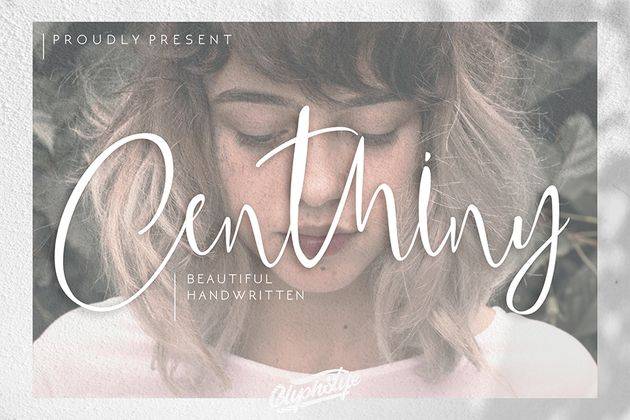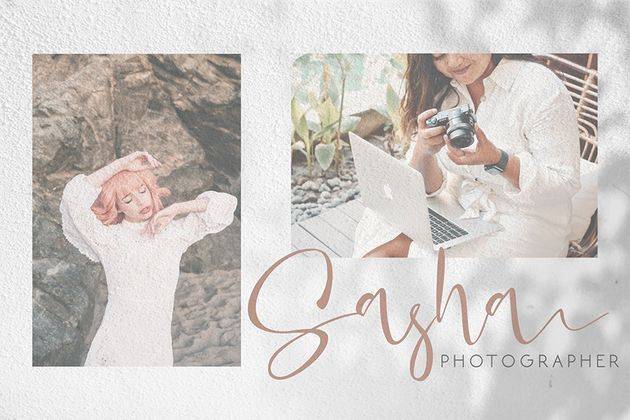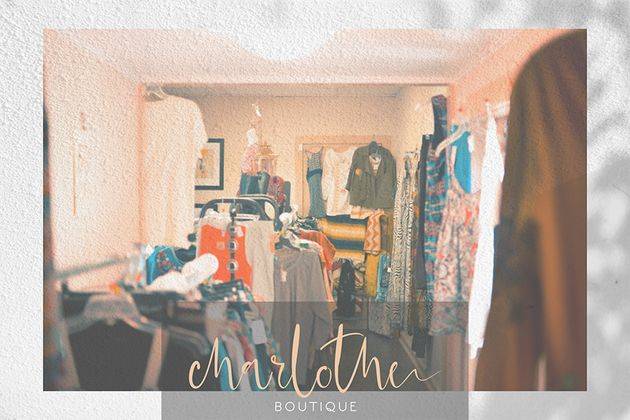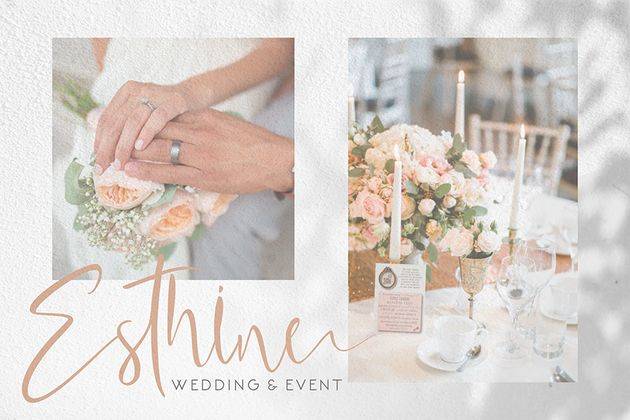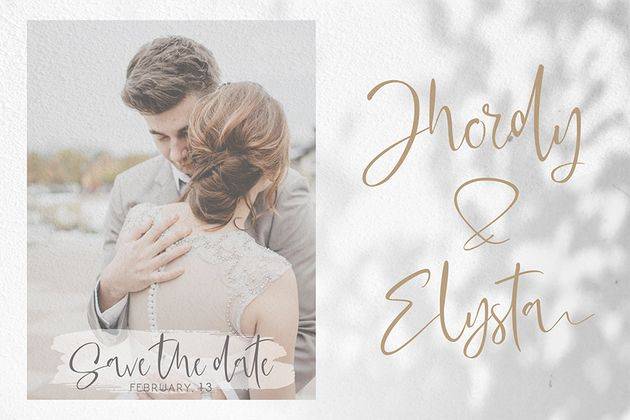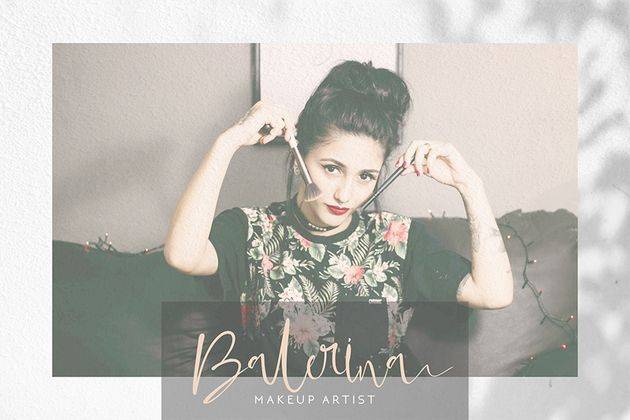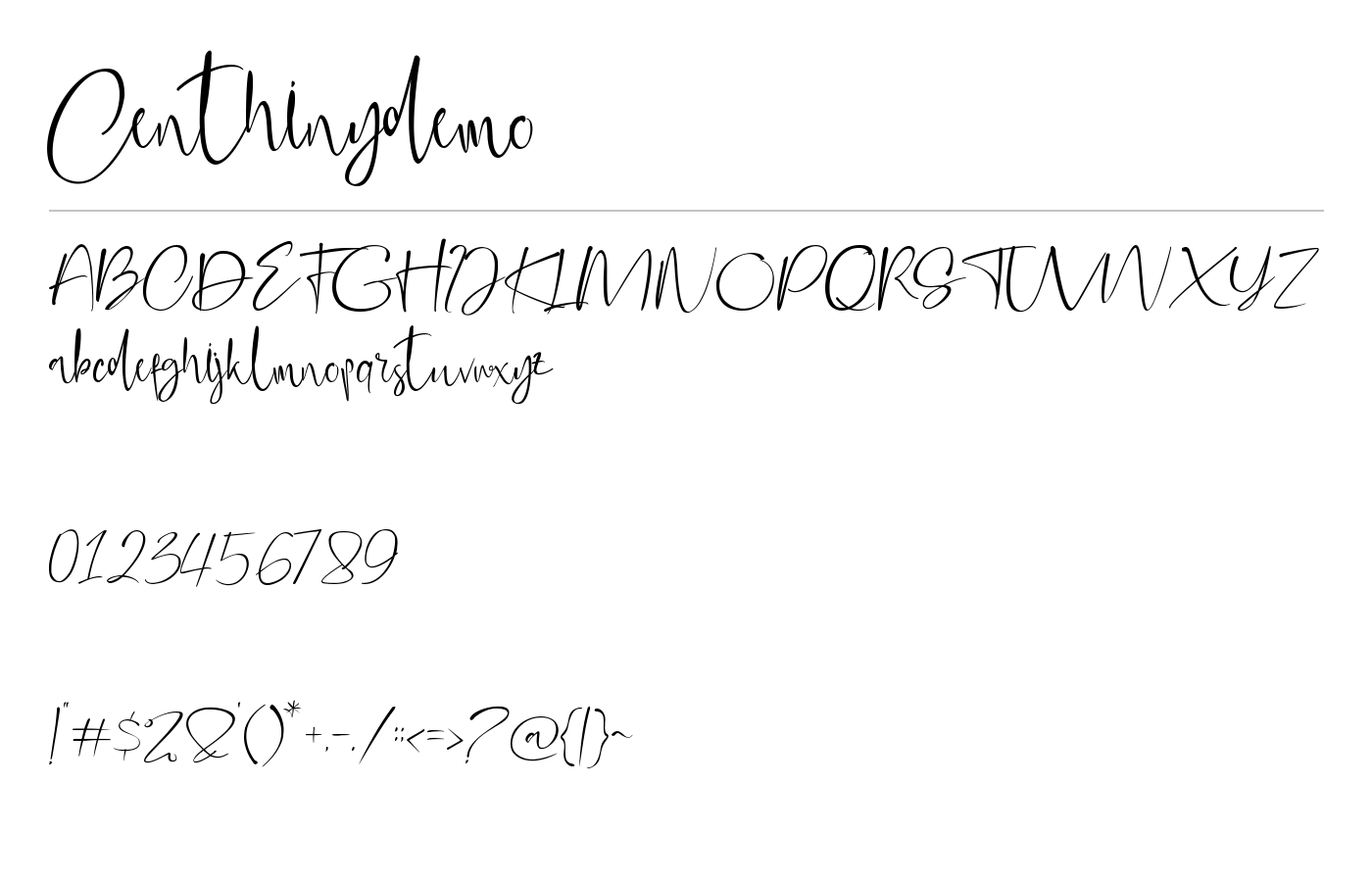
Centhiny Beautiful Handwritten Font is a delicate and elegant script with a natural, flowing style that mimics authentic handwriting. Its thin strokes and airy letterforms create a light, graceful feel, perfect for adding a personal and artistic touch to invitations, branding, or stylish editorial projects. This font shines in designs seeking a blend of sophistication and casual charm.
Centhiny Beautiful Handwritten Font
About Centhiny Beautiful Handwritten Font
| Font family | Centhiny Beautiful Handwritten Font |
| Release date | 2019-09-06 |
| Designer | GlyphStyle |